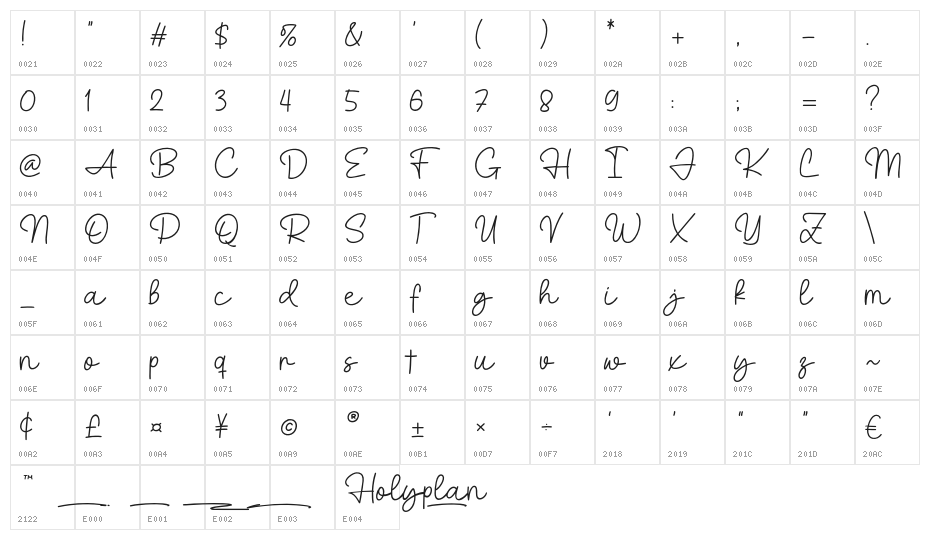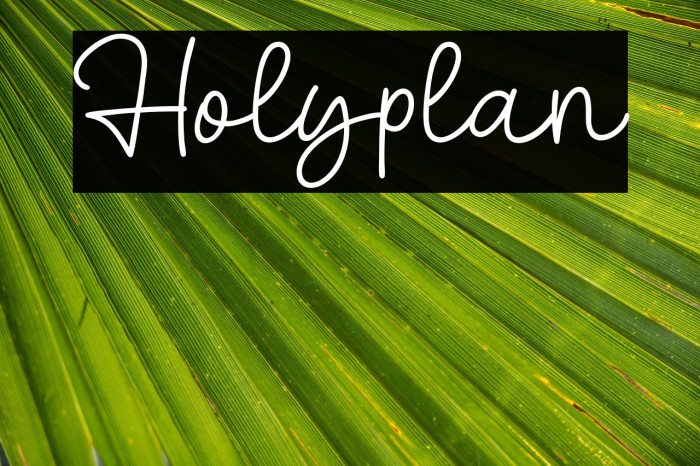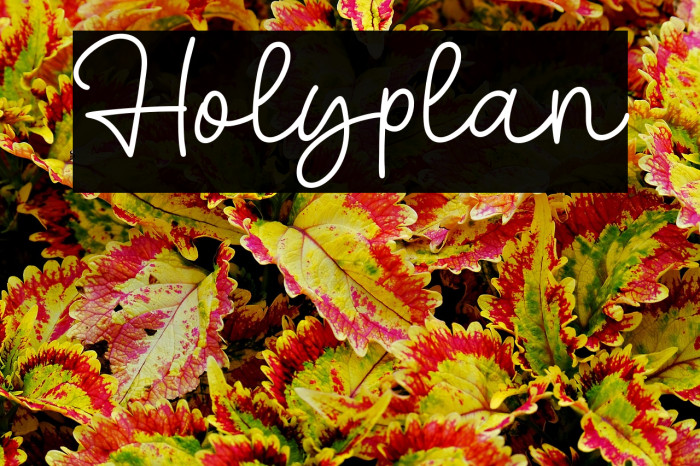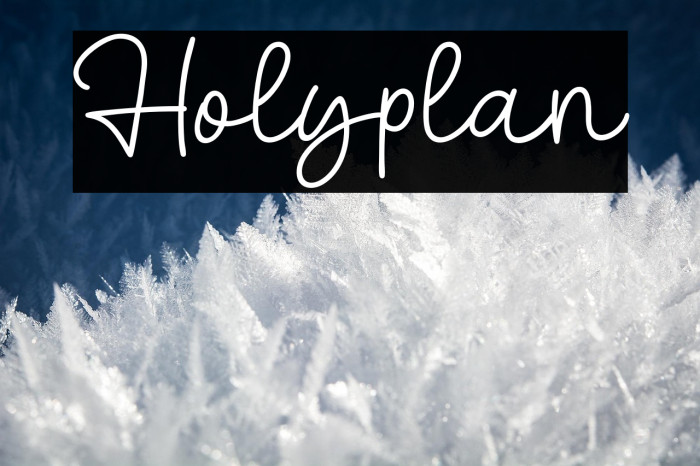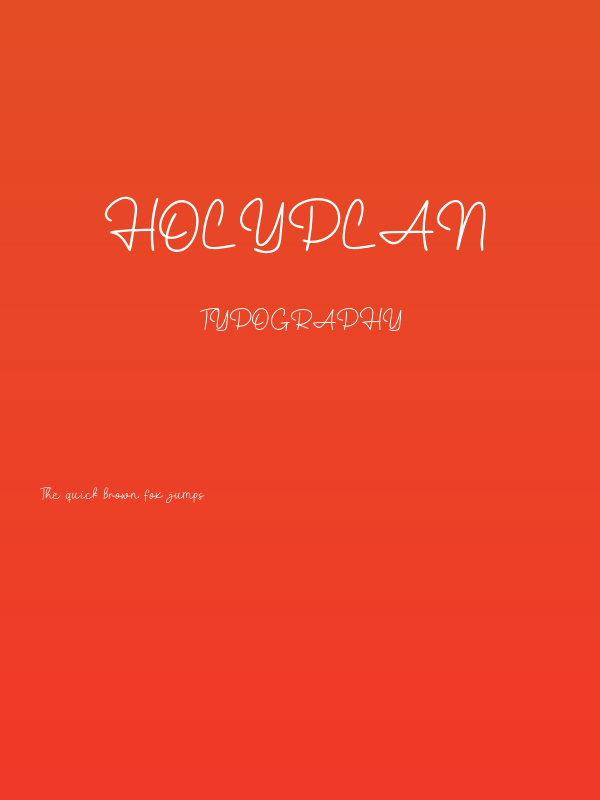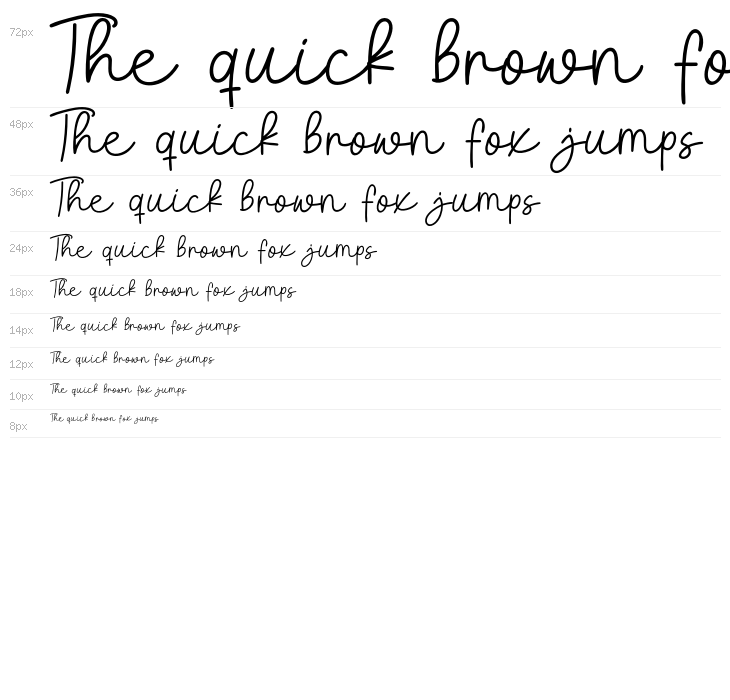
Holyplan Font
Holyplan Description
This font features a playful and casual handwritten style, characterized by smooth, flowing lines and a slightly irregular baseline that adds a touch of whimsy. The uppercase letters are distinct with a slight slant, while the lowercase letters maintain a consistent flow, enhancing readability. Numbers and special characters are crafted with the same fluidity, ensuring a cohesive look across all text. The overall appearance is friendly and approachable, making it suitable for a variety of informal applications.
| Overall Style | Casual, Playful |
| Use Case | Headlines, Logos, Informal Text |
| Proposed Projects | Ideal for greeting cards, invitations, personal branding, and social media graphics. |